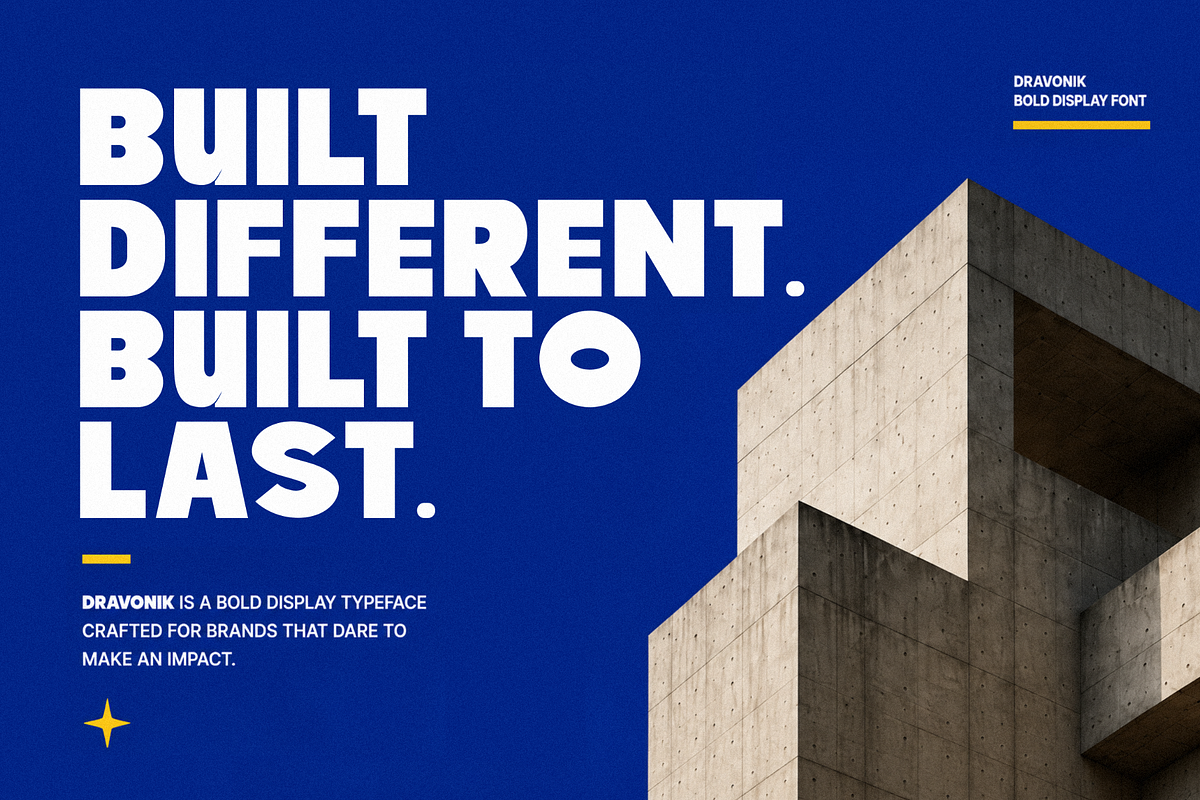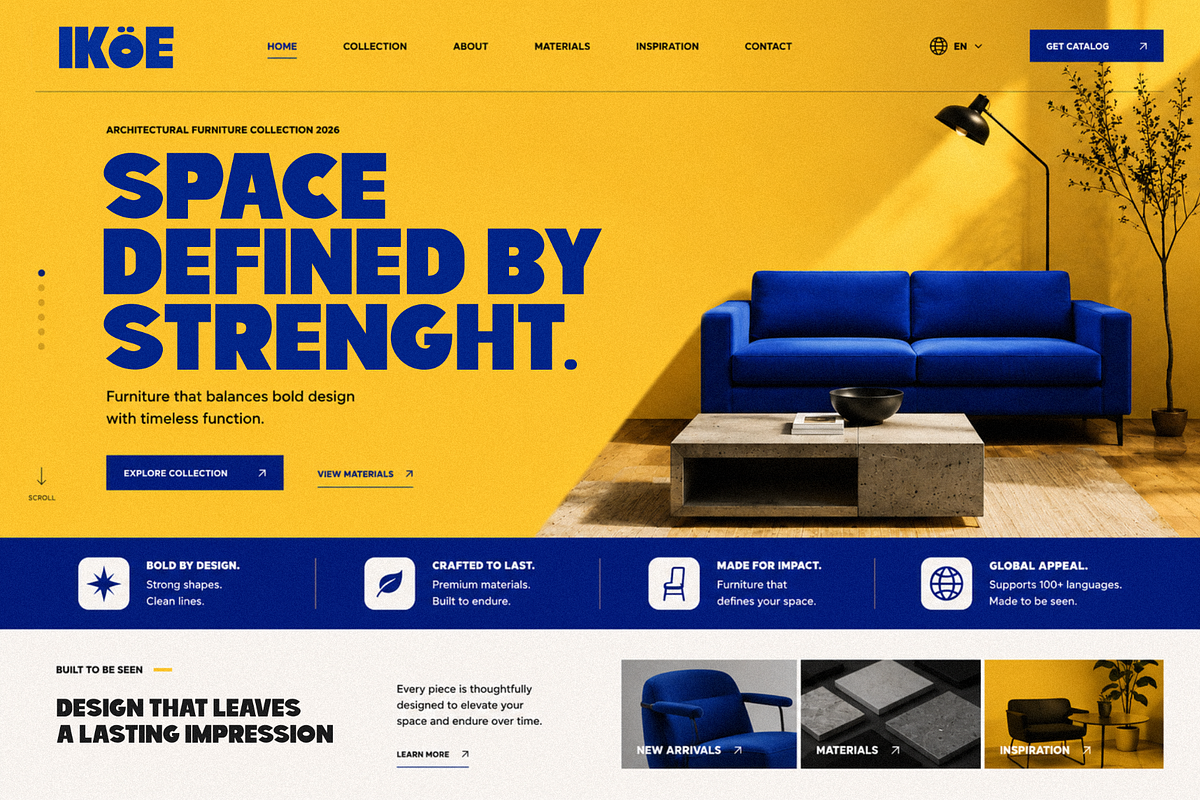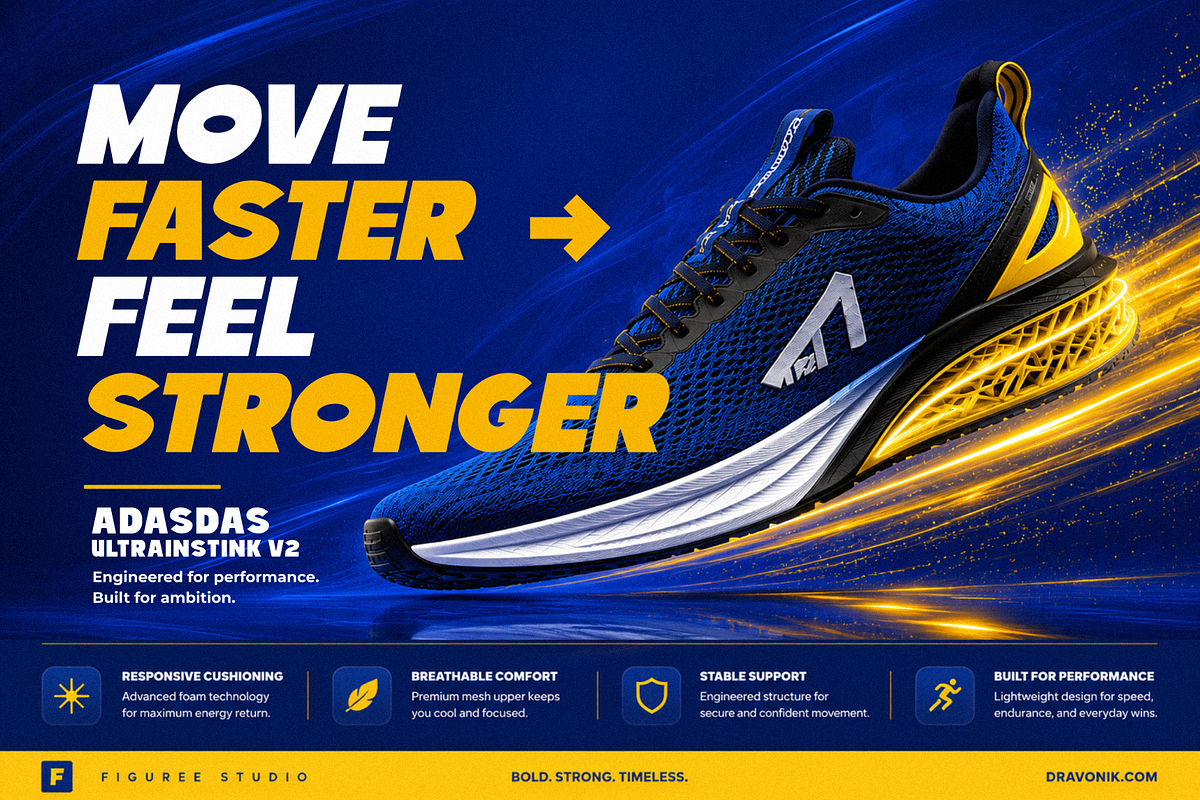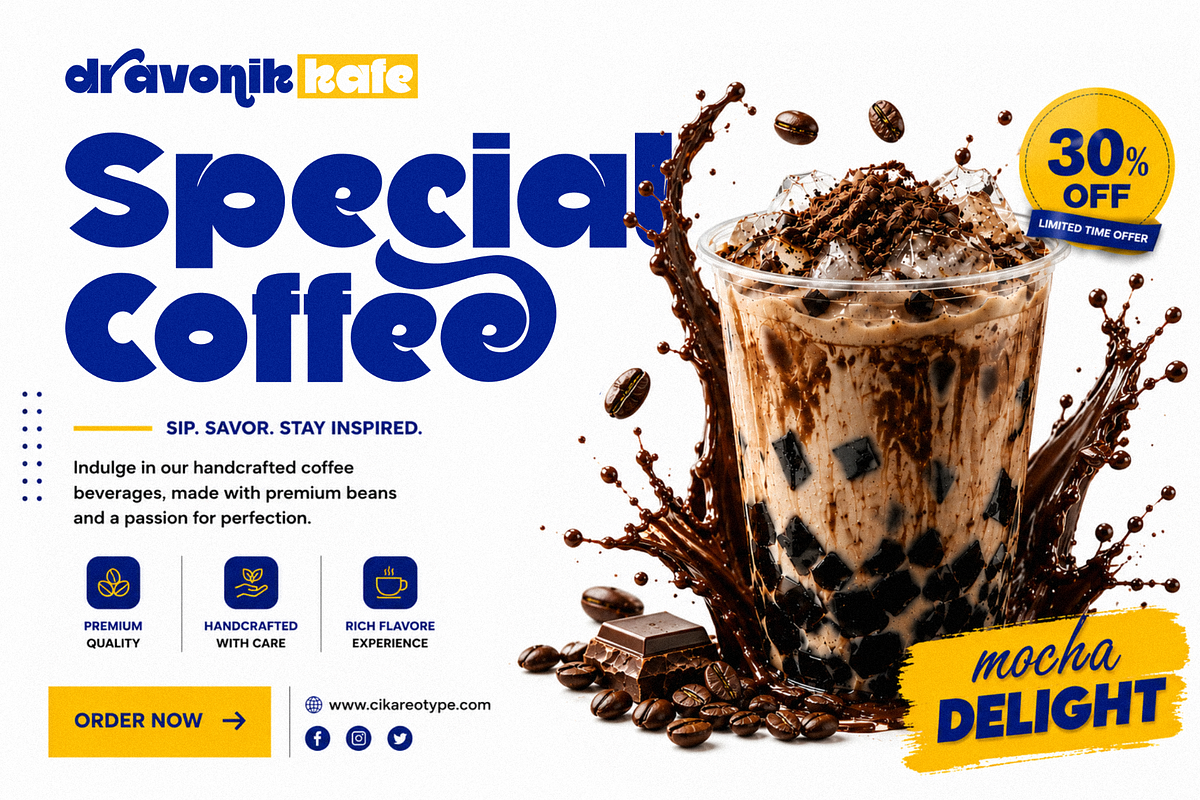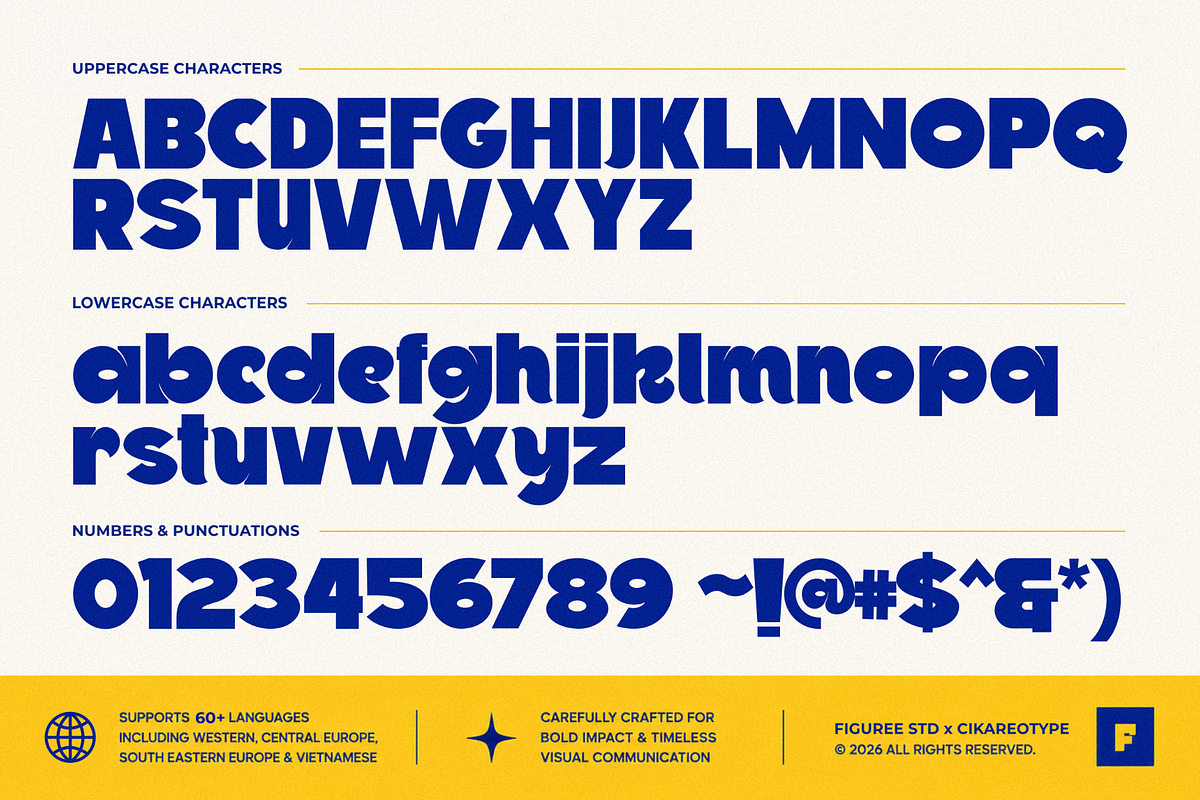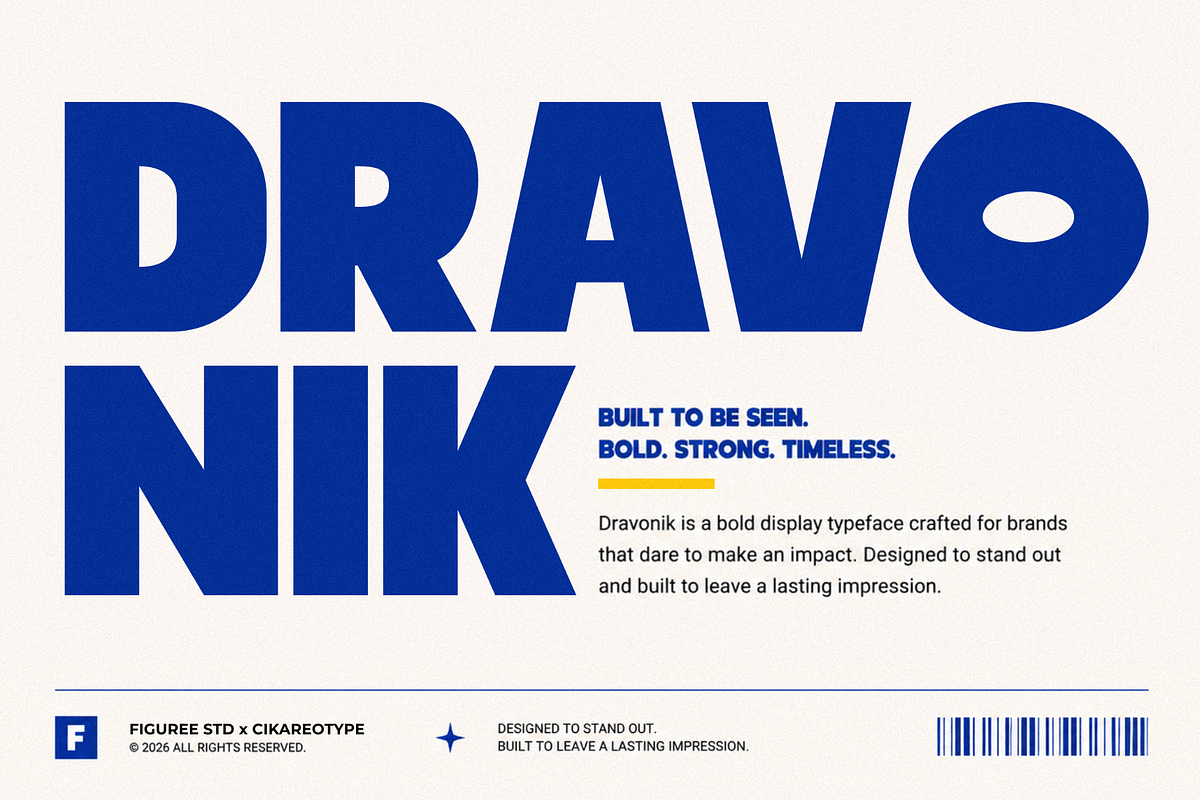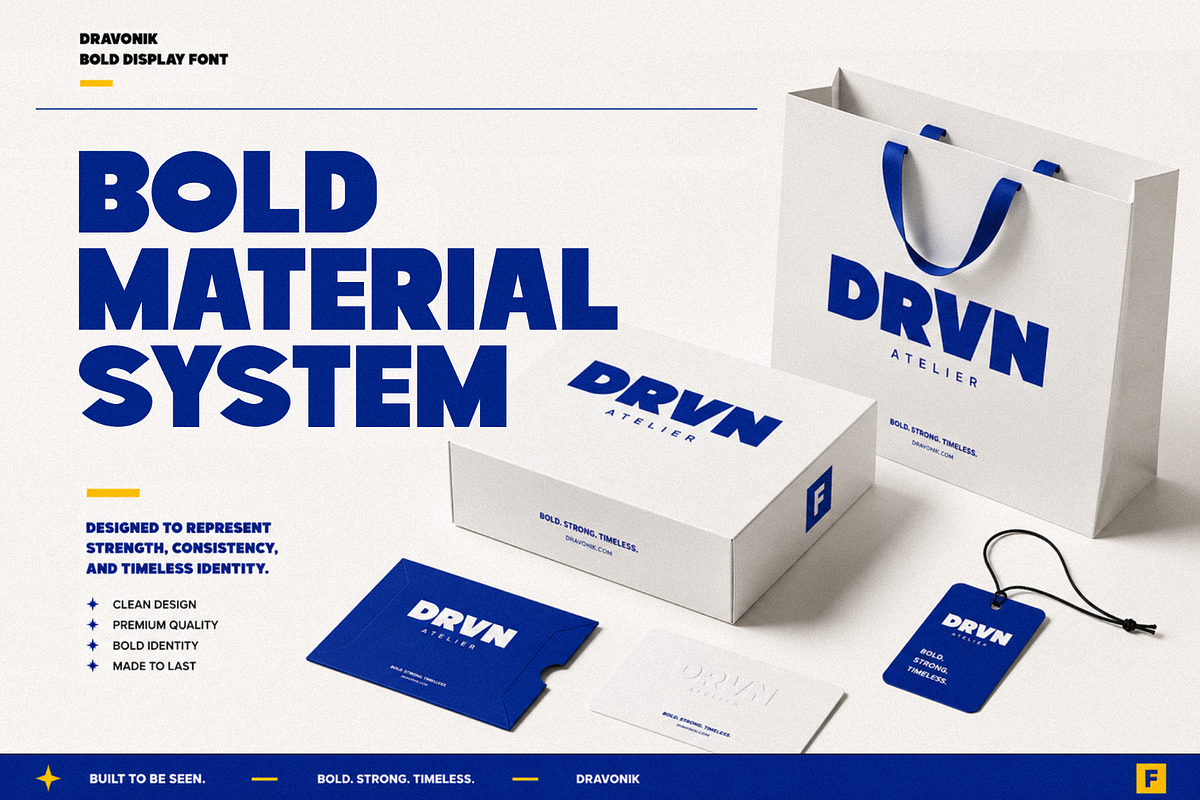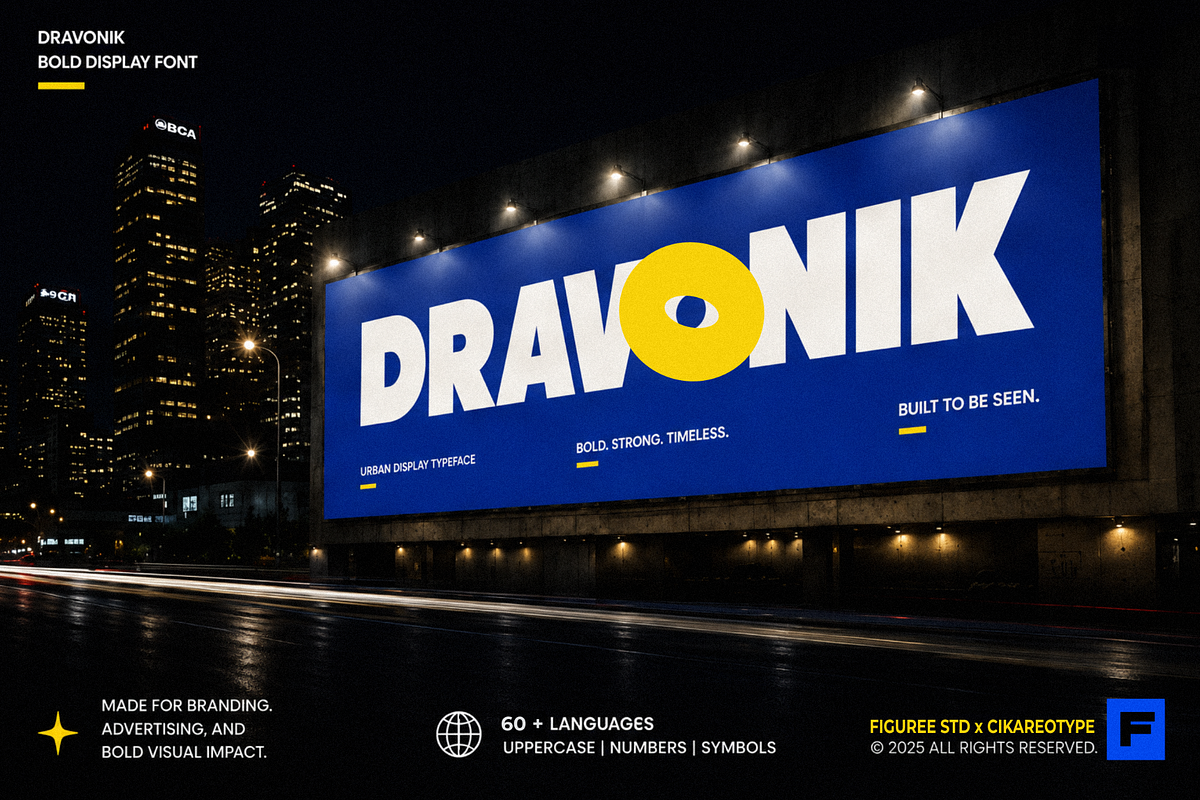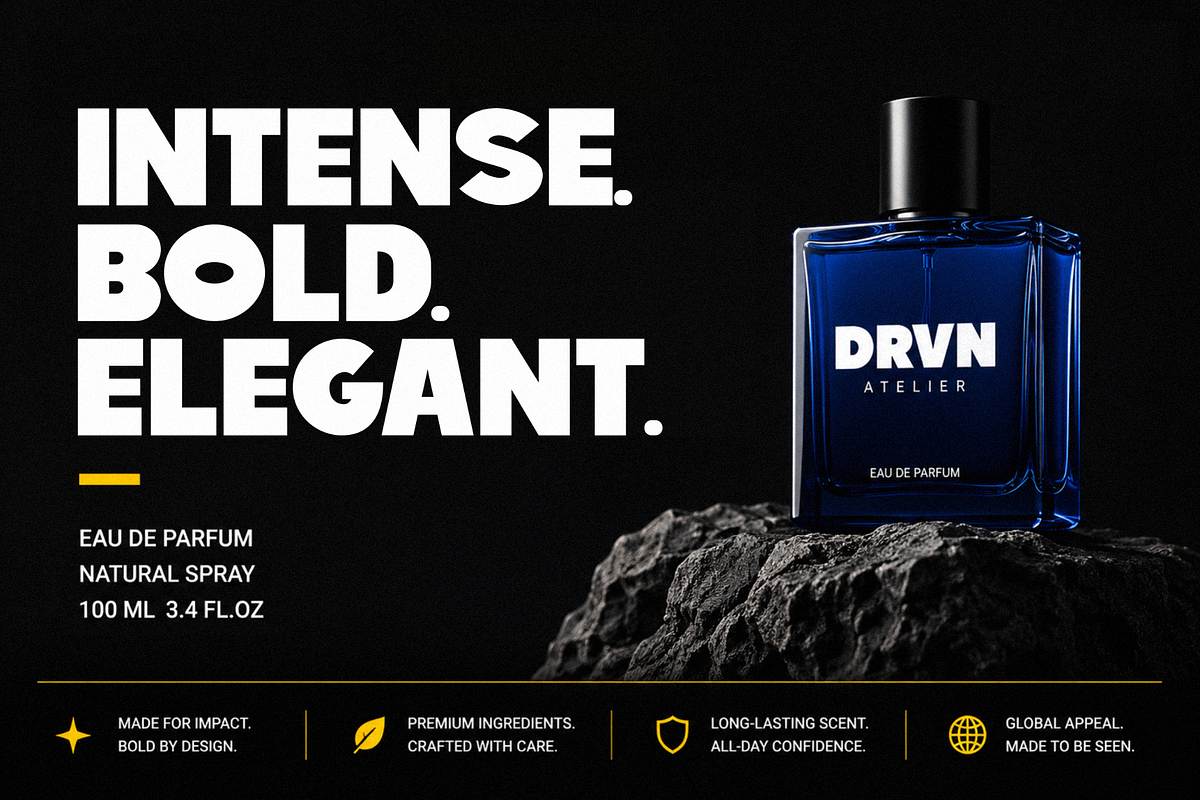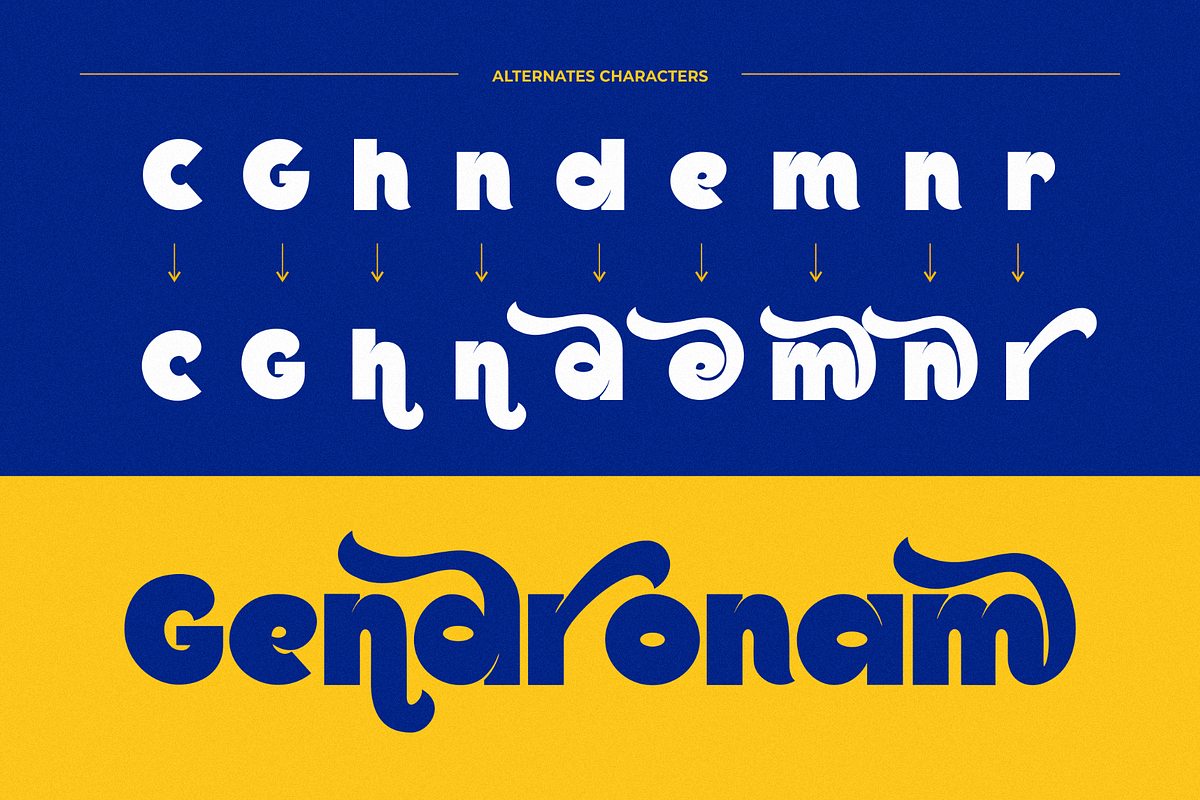
Dravonik - Bold Display Sans Serif
Introducing Dravonik – Bold Display Sans Serif, a strong and versatile typeface created for impactful typography projects. Designed with clean shapes, bold proportions, and modern character construction, Dravonik works perfectly for headlines, posters, presentation titles, editorial layouts, digital graphics, and promotional materials.
Dravonik comes with a complete character set including uppercase, lowercase, numbers, punctuation, symbols, multilingual support, and alternate characters. This gives designers more flexibility when creating distinctive text compositions and varied typographic styles.
The bold structure helps text remain readable while keeping a strong visual presence. Whether used in large display settings or supporting elements inside a layout, Dravonik adapts easily across different creative applications.
It's included italic style adds more variation for emphasis, layered typography, quotes, subtitles, and dynamic compositions. Combined with alternate characters, users can create multiple visual directions without switching fonts.
Dravonik is suitable for posters, editorial pages, presentations, book covers, video titles, social media graphics, event materials, packaging layouts, website headers, and other display-focused projects. The balance between modern sans serif construction and expressive details allows it to fit both minimal and bold compositions.
Uppercase & Lowercase Characters
Numbers, Punctuation & Symbols Included
Alternate Characters
Bold Display Sans Serif Style
Regular & Italic Version Included
Suitable for Print and Digital Projects
Strong Readability for Large Headlines
Flexible for Layered Typography Layouts
Why Designers Love It
Designers use Dravonik because it offers flexibility without making layouts complicated. The bold weight creates a clear hierarchy for headlines and display text, while lowercase letters help maintain readability in supporting content.
The alternate characters provide extra variation, allowing more creative combinations for titles, editorial spreads, and promotional graphics. The italic version expands design possibilities further by introducing movement and contrast inside compositions.
Multilingual support also makes Dravonik practical for broader audiences and international projects. Instead of relying on multiple font families, users can create consistent typography systems using one complete package.
Its structure works especially well for poster designs, title screens, presentations, brochures, content thumbnails, packaging concepts, and editorial layouts where text needs stronger visual emphasis.
Dravonik was built for projects that need bold typography, flexible character options, and modern display styling. With uppercase and lowercase letters, alternates, multilingual support, plus regular and italic styles, it gives designers more ways to build clear and impactful compositions. Add Dravonik to your collection and create titles, layouts, and display graphics with stronger visual direction.